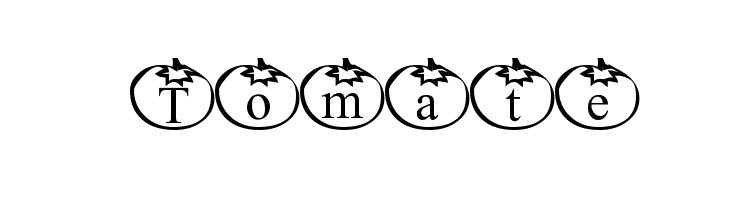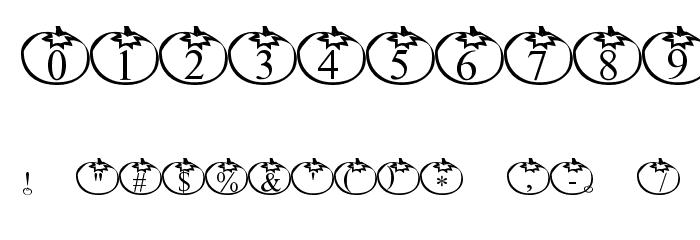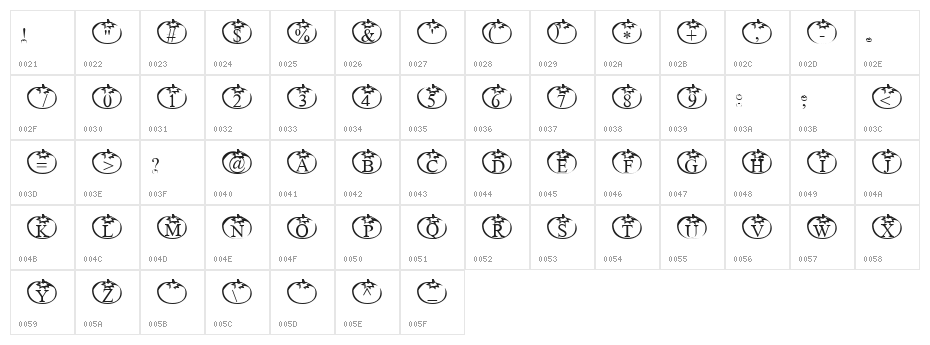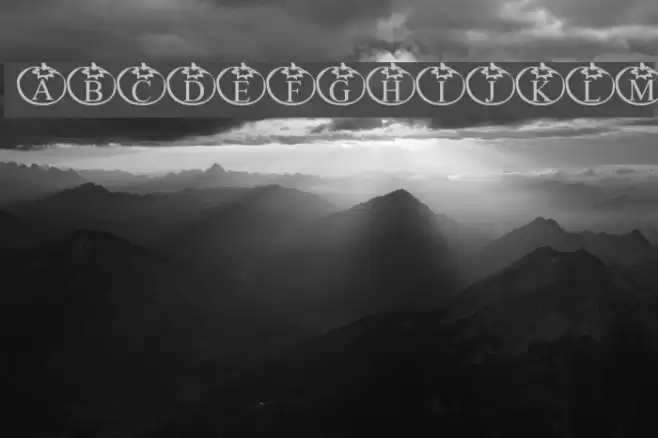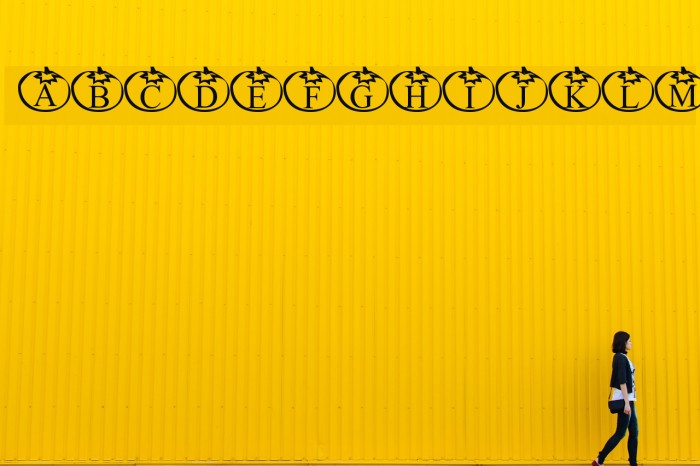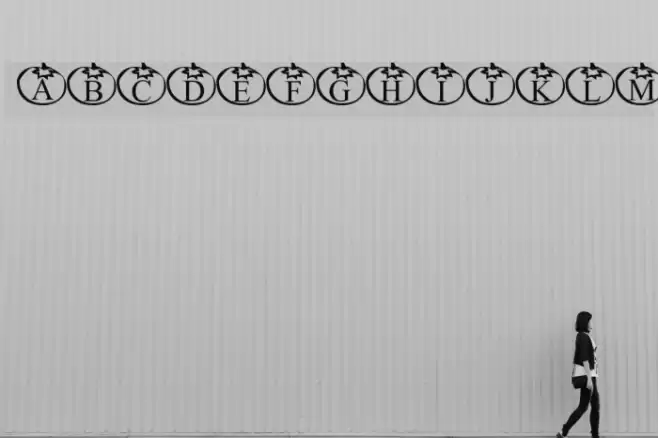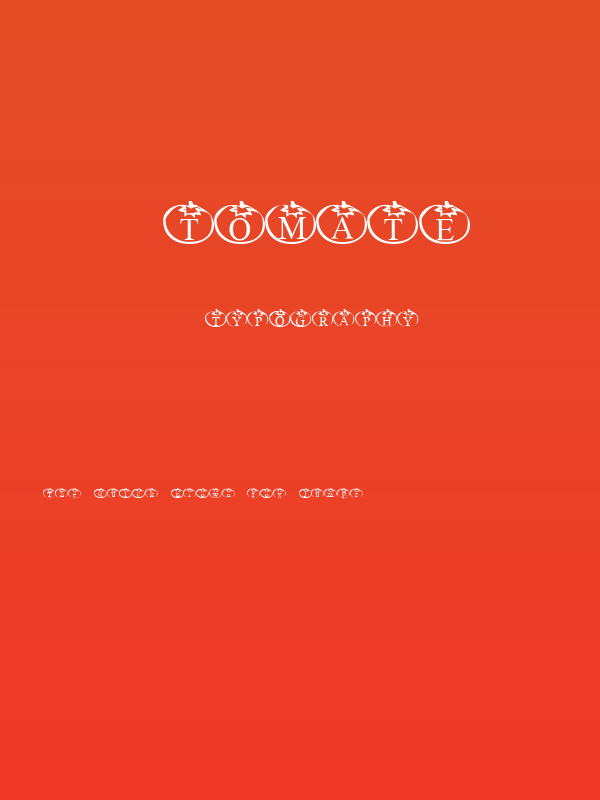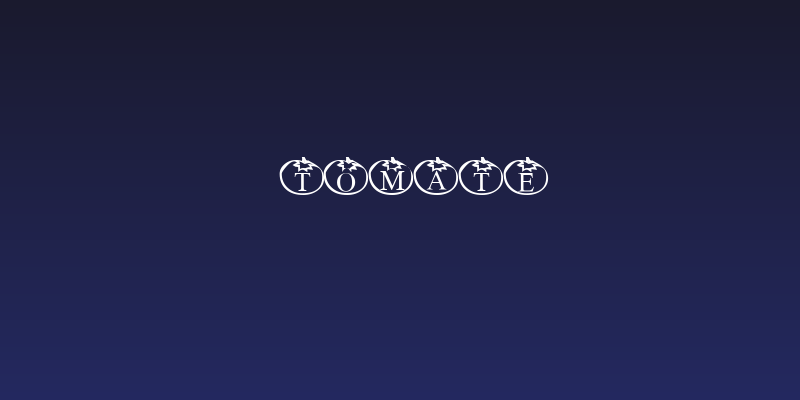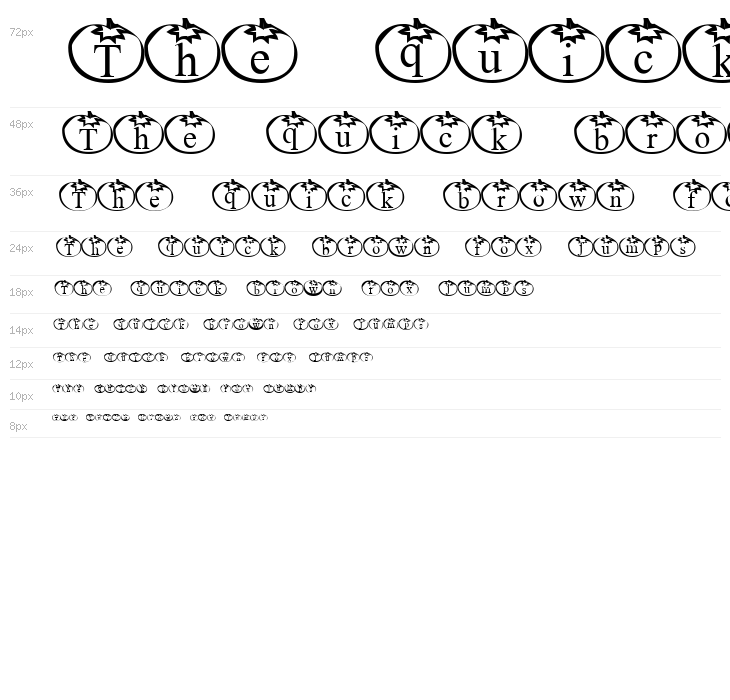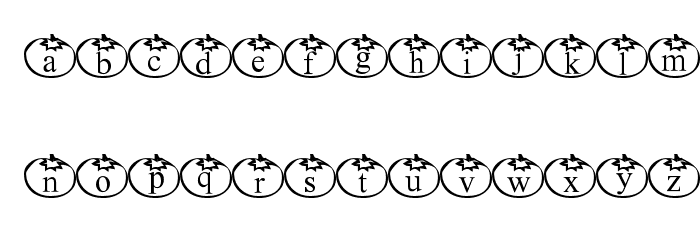
Tomate Font
Tomate Description
This playful and decorative font features characters enclosed within tomato-like shapes, complete with a small leaf on top. The letters and numbers are bold and clear, making them stand out against the circular background. The unique design adds a whimsical touch, perfect for projects that require a fun and lighthearted aesthetic. The font maintains consistent spacing and alignment, ensuring readability while retaining its distinctive style. The special characters are also integrated into the tomato motif, providing a cohesive look across all elements.
| Use Case | Logos, Posters, Invitations |
| Proposed Projects | Perfect for children's books, food-related branding, playful posters, and creative invitations. |